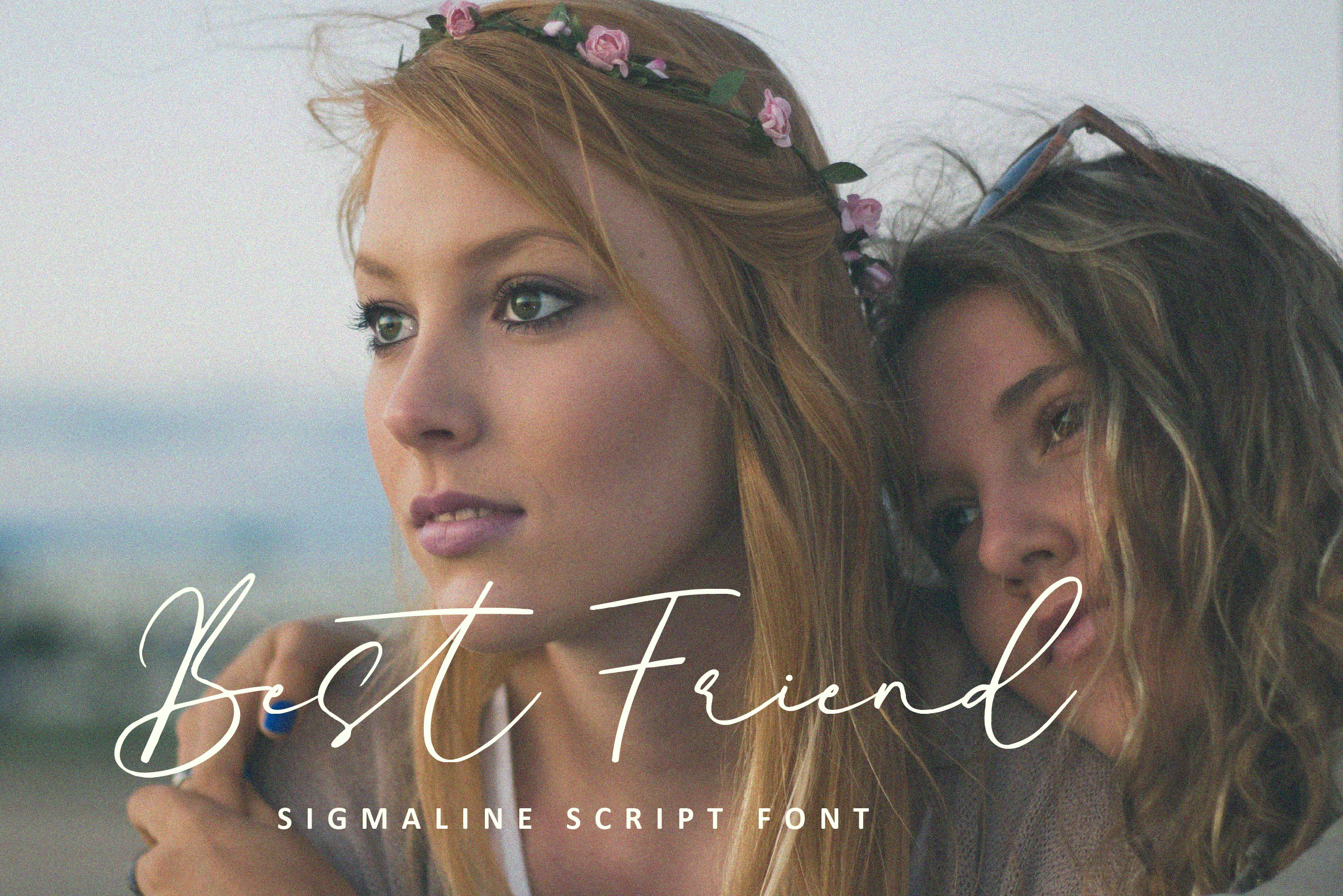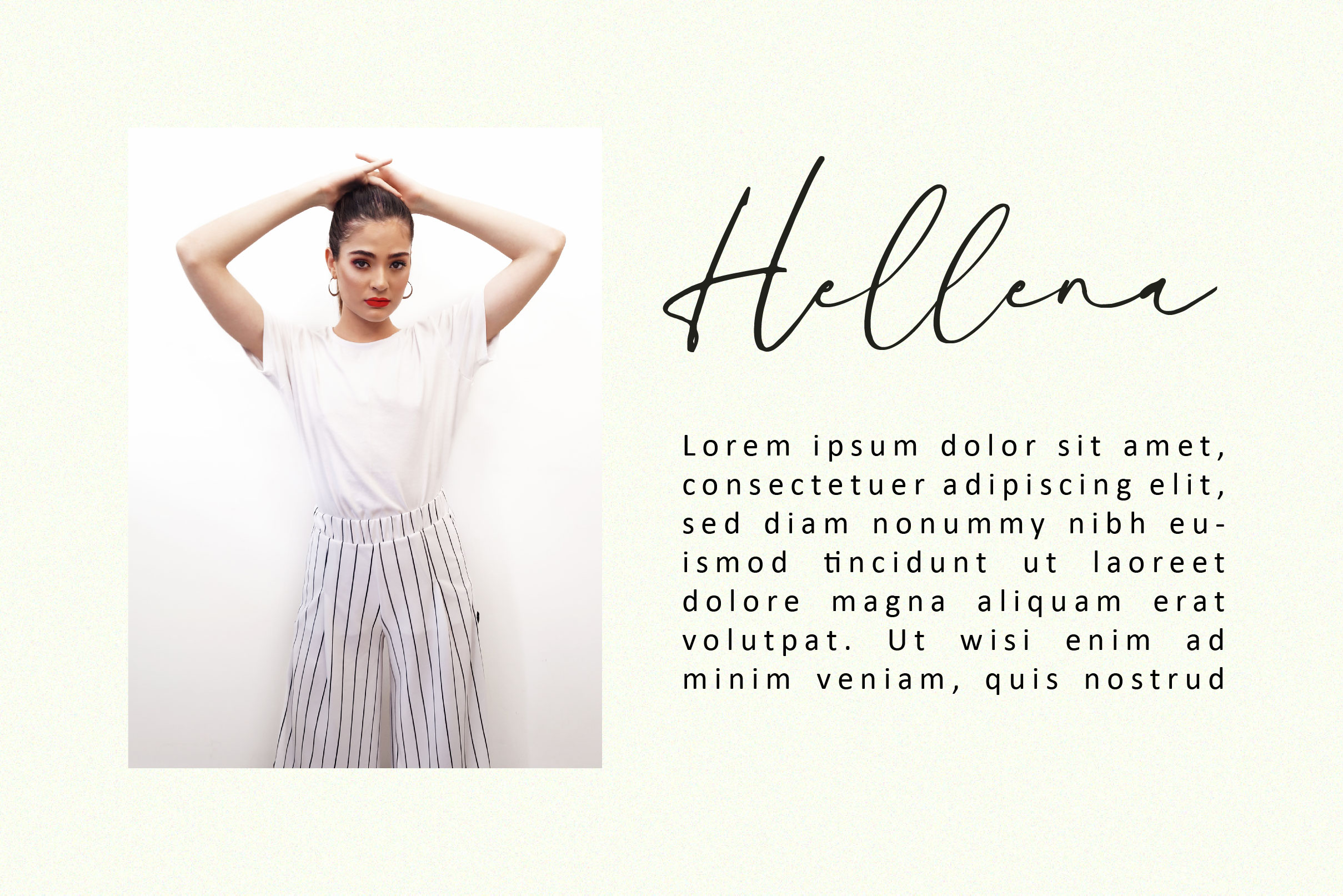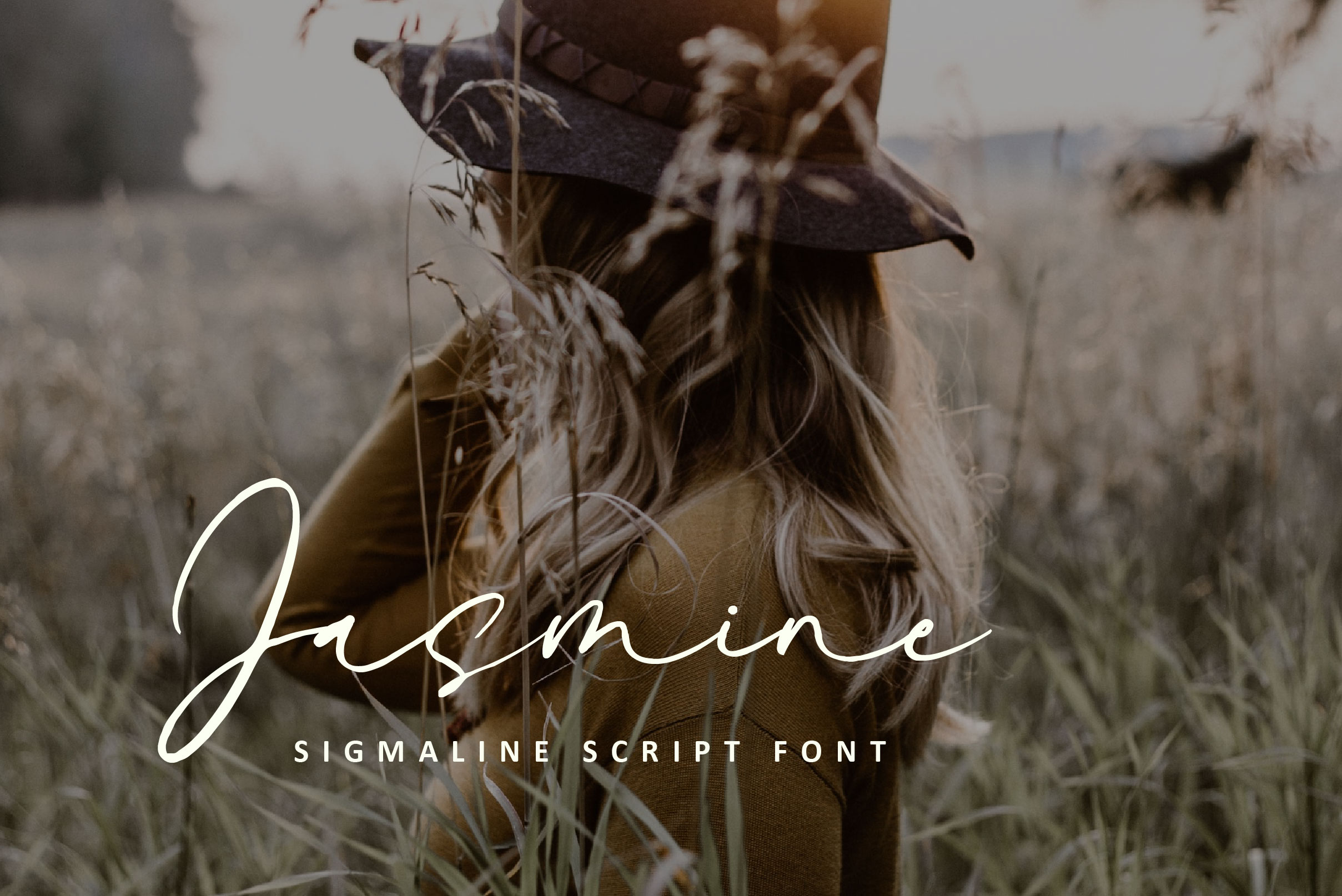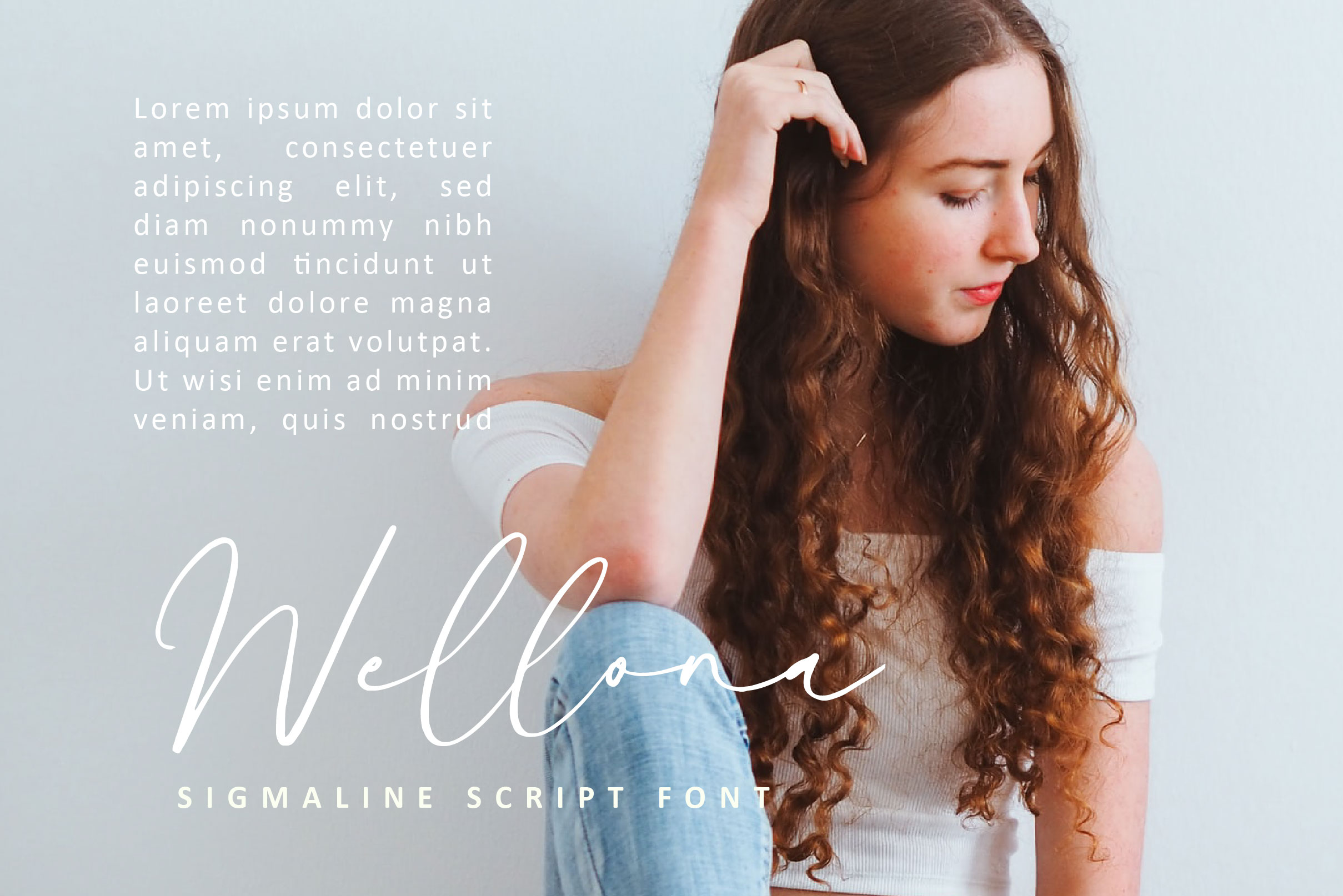
Sigmaline Font
Sigmaline Script Font is a lovely and delicate script font that exudes elegance and class. This font was particularly crafted for those who need a beautiful and refreshing look to their designs.